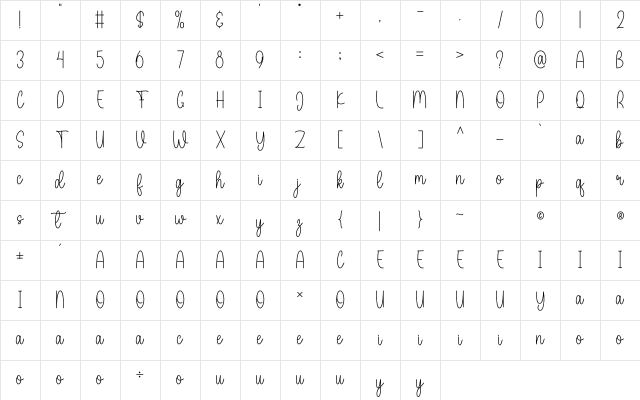
Welcome September Regular Free Font
Welcome September Regular
Foundry: Wahyu Studio
Designer: Wahyu Setiyawan
Design Context for Welcome September
Welcome September is a composed and adaptable typeface that performs quietly and consistently across a wide range of design contexts.